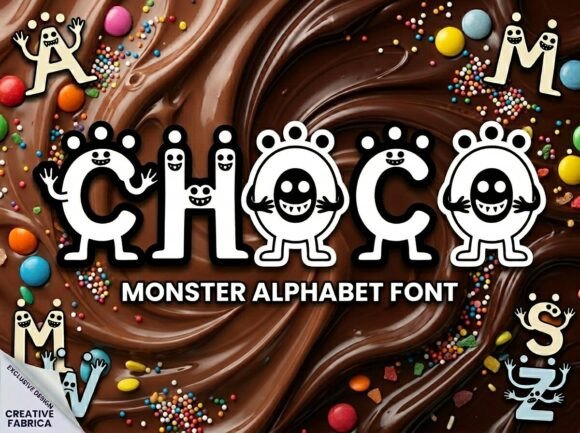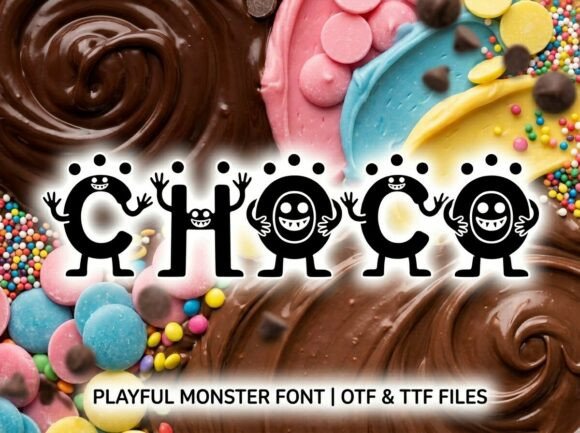
Unleash a World of Imagination with Choco Font
Are you a designer or crafter looking for a unique and playful typeface to bring your creative projects to life? Look no further than Choco, a spirited display font that captures the essence of a “wild-and-whimsical” soul. With its bold, rounded letterforms transformed into rhythmic, hand-drawn monsters, Choco is the perfect choice for independent children’s entertainment branding, toy packaging, playful snacks, and high-impact social media headers.
The Unique Features of Choco Font
Choco font features bold, rounded letterforms that are uniquely transformed into rhythmic, hand-drawn monsters. Each letter is characterized by expressive faces, wiggly arms, and quirky antennae, giving the font an animated and playful personality. The heavy structural weight of Choco makes it perfect for headlines and titles, while its animated personality brings a touch of whimsy and fun to any design project.
Perfect for Children’s Entertainment Branding
Choco font is the premier choice for independent children’s entertainment branding. Its playful and imaginative design makes it perfect for creating engaging and fun brand identities for kids’ shows, movies, and games. With Choco, you can create a brand that stands out from the crowd and captures the attention of your target audience.
Toy Packaging and Playful Snacks
Choco font is also ideal for toy packaging and playful snacks. Its bold and colorful design makes it perfect for creating eye-catching packaging that stands out on store shelves. Whether you’re designing a cereal box or a toy label, Choco font is sure to add a touch of fun and whimsy to your design.
High-Impact Social Media Headers
Choco font is also perfect for creating high-impact social media headers. Its bold and animated design makes it perfect for grabbing the attention of your followers and adding a touch of personality to your social media posts. Whether you’re designing a header for Facebook, Twitter, or Instagram, Choco font is sure to make your post stand out.
Key Features of Choco Font
• Bold and rounded letterforms: Choco font features bold and rounded letterforms that are perfect for creating eye-catching headlines and titles.
• Hand-drawn monsters: Each letter is transformed into a rhythmic, hand-drawn monster that adds a touch of whimsy and fun to your design.
• Expressive faces and quirky antennae: Each monster features an expressive face and quirky antennae that bring a touch of personality to your design.
• Heavy structural weight: Choco font has a heavy structural weight that makes it perfect for headlines and titles.
• Animated personality: Choco font has an animated personality that brings a touch of fun and whimsy to your design.
Why Choose Choco Font?
So why choose Choco font for your design project? Here are just a few reasons:
• Unique and playful design: Choco font features a unique and playful design that is sure to capture the attention of your target audience.
• Perfect for kids’ branding: Choco font is perfect for creating engaging and fun brand identities for kids’ shows, movies, and games.
• Versatile: Choco font can be used for a variety of design projects, from toy packaging to social media headers.
In conclusion, Choco font is a unique and playful typeface that is perfect for designers and crafters looking to add a touch of whimsy and fun to their design projects. With its bold and rounded letterforms, hand-drawn monsters, and animated personality, Choco font is the premier choice for independent children’s entertainment branding, toy packaging, playful snacks, and high-impact social media headers. So why wait? Download Choco font today and unleash a world of imagination in your design projects!